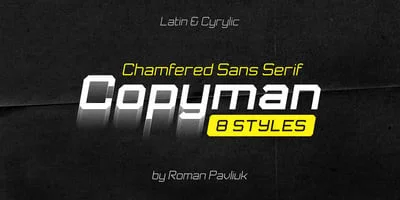
Copyman Font is ideal for advertising agency branding, marketing campaign headlines, copywriting portfolio websites, creative writing workshops, journalism school materials, editorial design projects, content marketing graphics, and professional writer business cards. This dynamic typeface works perfectly in advertising posters, marketing email headers, social media content creation, and persuasive sales presentation materials.
What makes Copyman Font exciting is its persuasive power and professional credibility that captures the essence of compelling copywriting and effective communication. The font features strong letterforms, confident spacing, and authoritative character that commands attention while maintaining excellent readability. Its professional appeal and marketing sophistication make every word feel like expertly crafted copy that drives results.
Copyman Font family includes various professional styles: Regular, Bold, Light, Condensed, Extended, and Impact variations. Each style maintains the font's signature marketing authority while providing designers with comprehensive options for creating powerful brand communications and persuasive typography that resonates with business and marketing audiences.
Marketing professionals choose Copyman Font for projects requiring copywriting credibility and advertising appeal. The font's versatility makes it suitable for both digital marketing campaigns and traditional print advertising, ensuring persuasive results across websites, email marketing, promotional materials, and corporate communications.